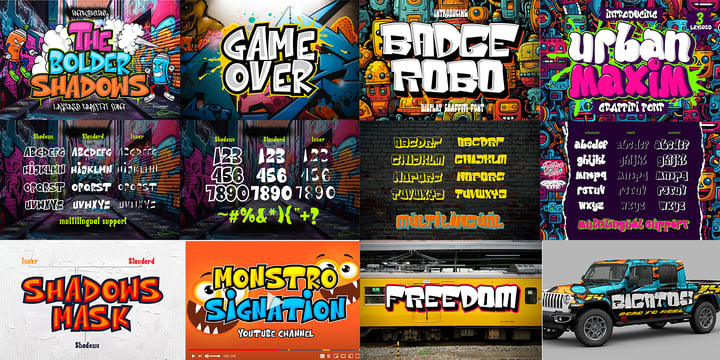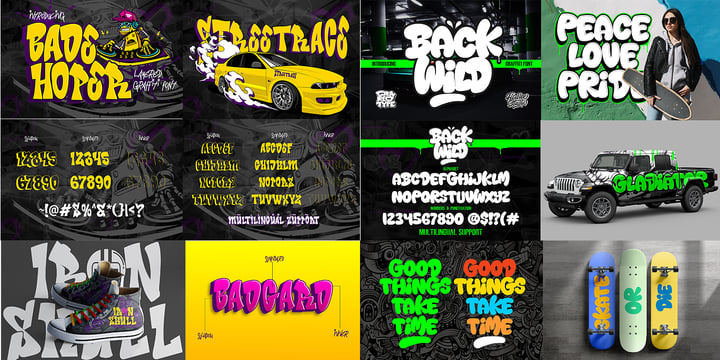
Street Graffiti Font Bundle
Introducing the Street Graffiti Font Bundle, a dynamic collection comprising over 40+ graffiti fonts tailored for urban expression. This bundle features a diverse range of styles, including graffiti thick, regular, monoline, and even intricate 3D designs. Each font exudes the raw energy and distinct character of street art, capturing the essence of urban culture and creativity. Whether you're crafting edgy designs for posters, apparel, or digital media, this bundle provides a versatile toolkit to bring your projects to life with authentic graffiti flair. Explore the bold strokes, unique letterforms, and vibrant compositions within this bundle to add a rebellious edge and urban sophistication to your typography.